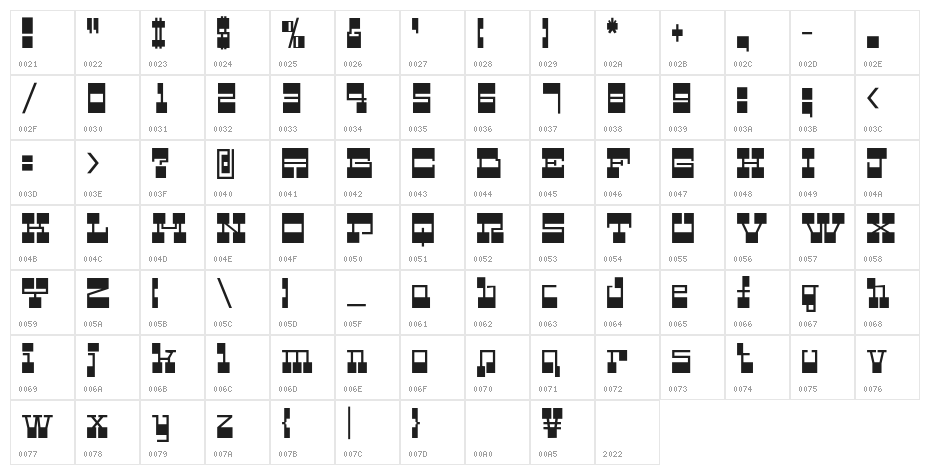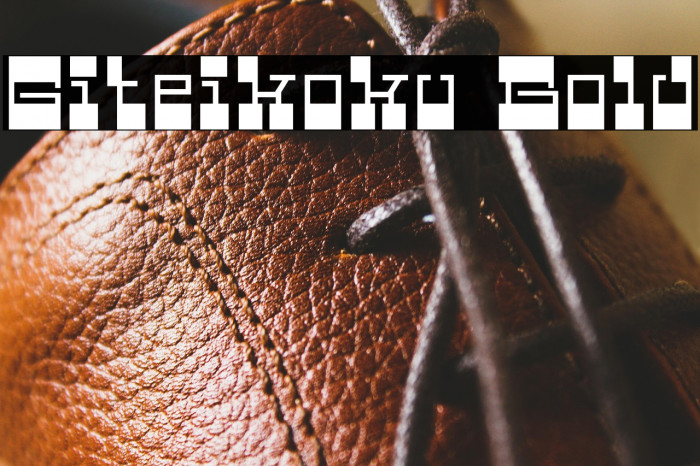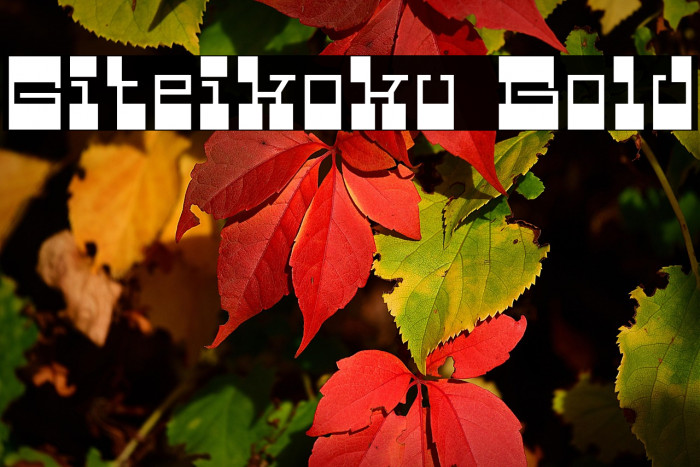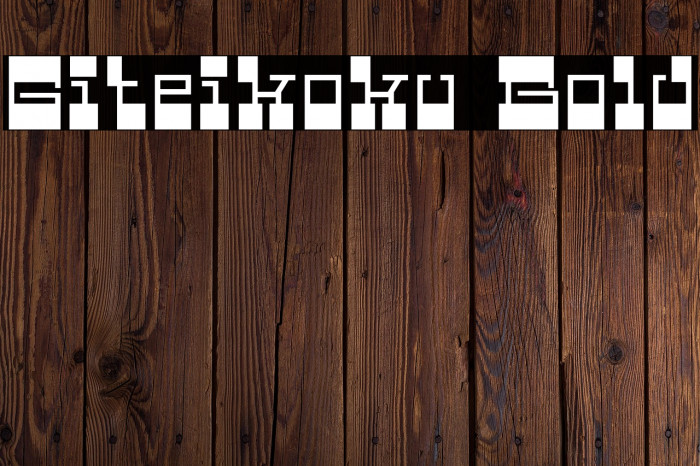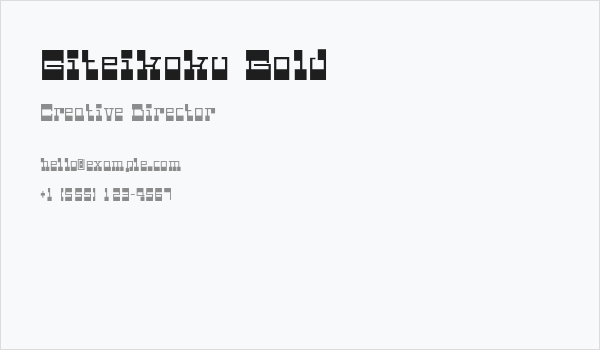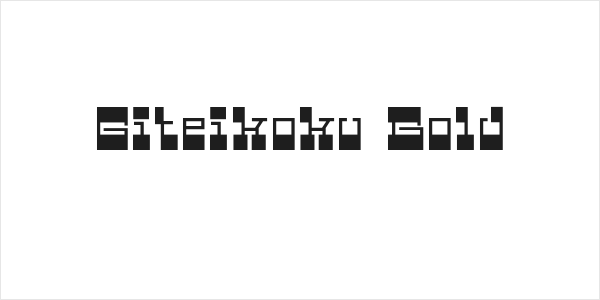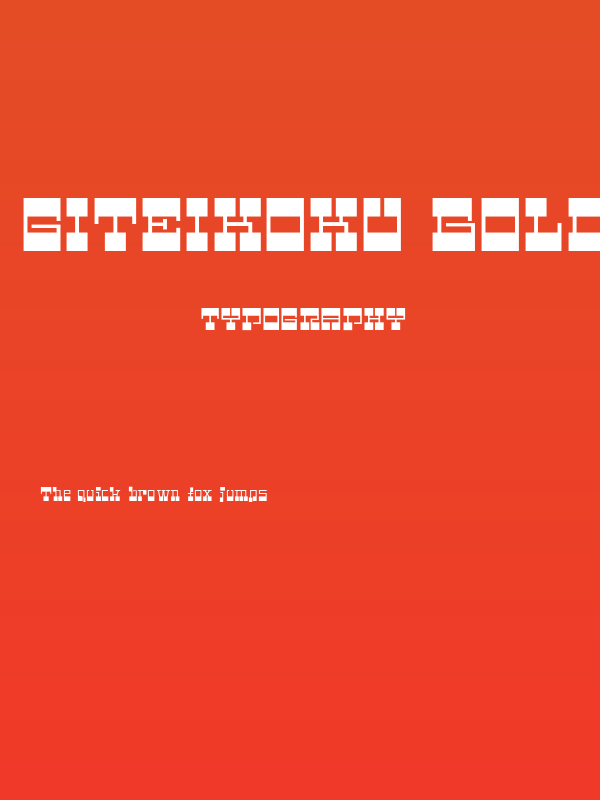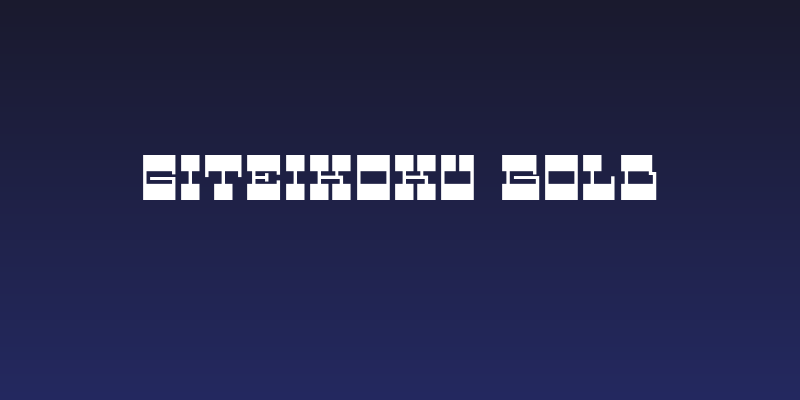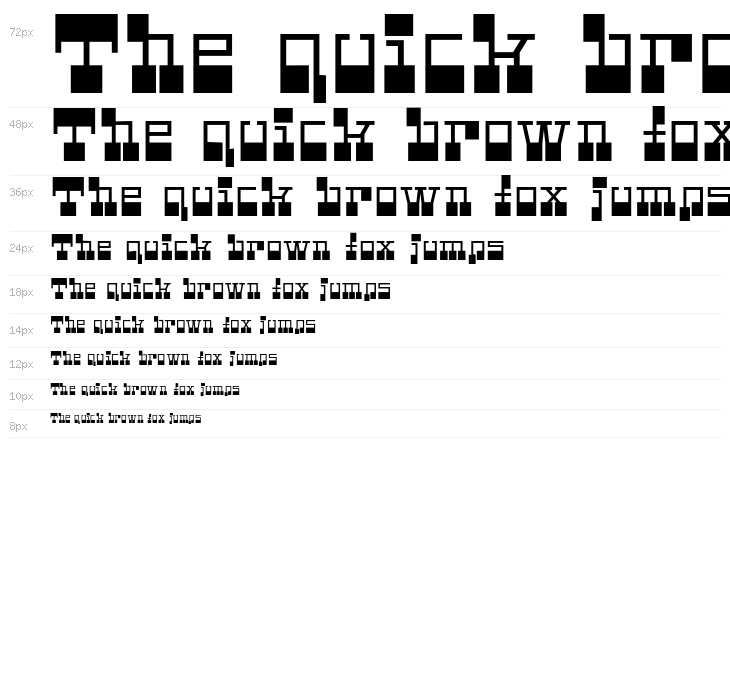
Giteikoku Bold Font
Giteikoku Bold Description
This font features a bold, geometric design with a distinctly modern and futuristic aesthetic. The characters are constructed from solid, block-like shapes, giving them a strong and impactful presence. The uppercase and lowercase letters maintain a consistent width, contributing to a uniform appearance. The numerals and special characters follow the same design principles, ensuring cohesion across all elements. The font's angular and structured form makes it ideal for projects that require a contemporary and assertive look.